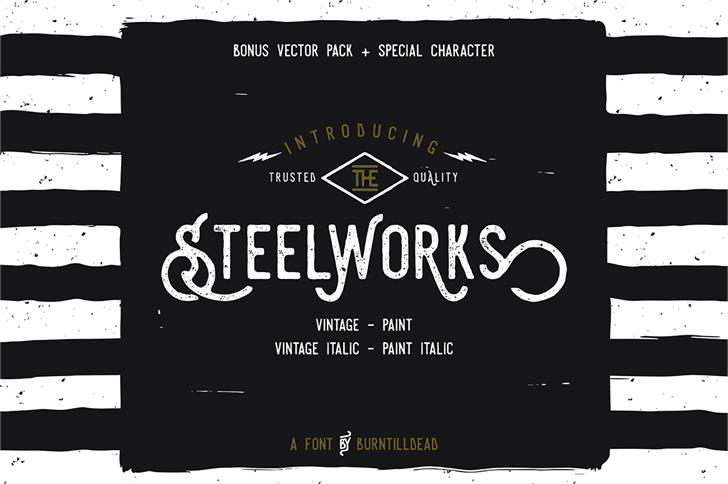
Free Steelworks Vintage Font
Download and enjoy this free steelworks vintage font. Cool typeface to showcase your designs in a modern way. This is a downloadable font file brought to you by Font Space. You can create a professional designs with this beautiful font.